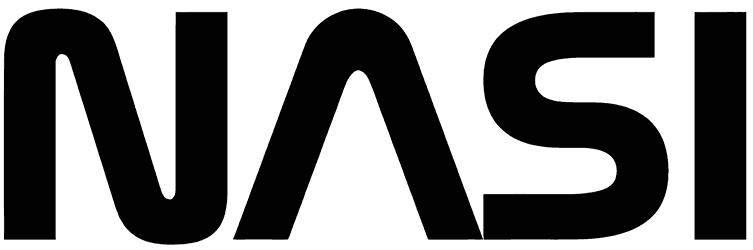
Nasi Font
Nasi is here to have your back whenever your words can’t convey enough futuristic vibes. Designed with dynamic modern letters, it can easily be considered one of the best sci-fi fonts.
So from now on, every time you need a tech font to present an electronic device or a technology brand, keep in mind that Nasi will be perfect for the job. You can just apply it to your simple texts and receive state-of-the-art logos for video games or internet companies.